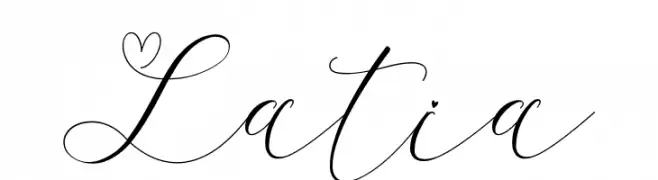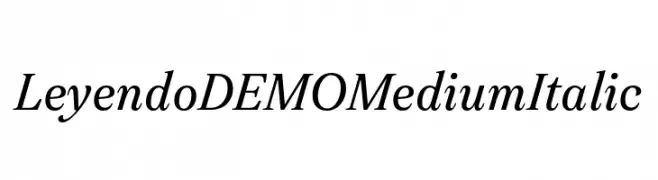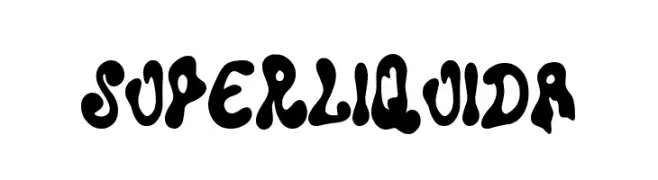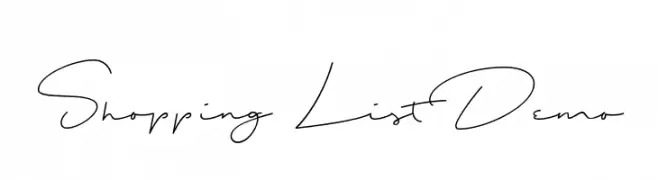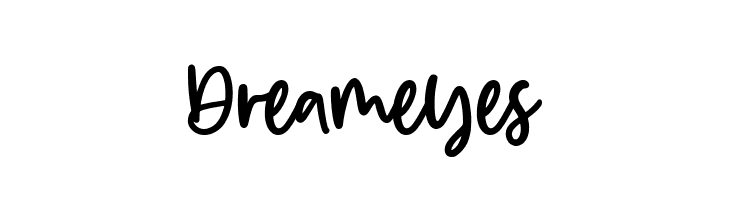
A decorative font inspired by Kachina dolls, featuring intricate and artistic characters.
A bold slab serif font with a strong, vintage-modern appeal.
An elegant script font with graceful, flowing lines and intricate flourishes.
An elegant, italic serif font with medium weight and classic style.
A bold, fluid, and playful font with a melting, organic appearance.
A playful, hand-drawn style font with thin, consistent strokes.
A bold, graffiti-inspired font with sharp angles and a dripping effect.
A bold, outlined font with a playful, three-dimensional shadow effect.
A bold, hand-drawn font with a playful and artistic style.